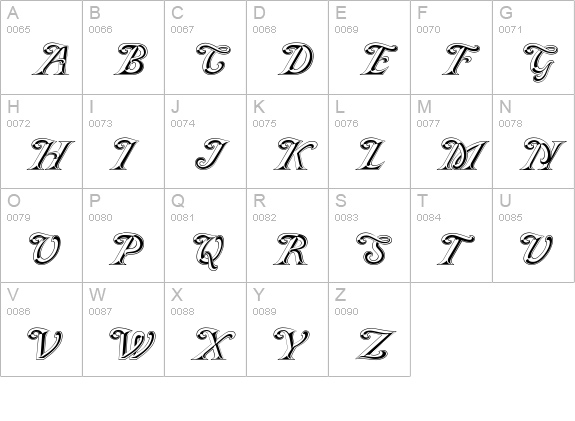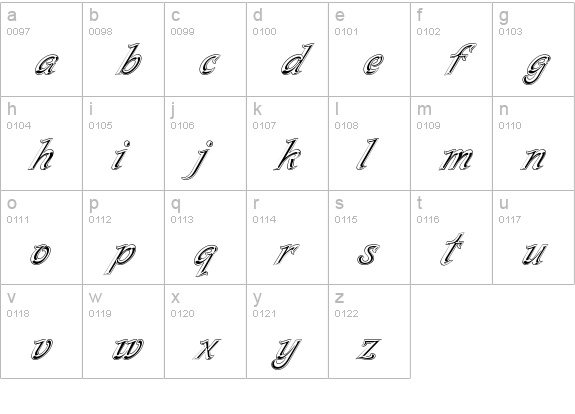
Sterling Font Details
The Sterling font is a timeless and elegant typeface that exudes sophistication and charm. Its sleek lines and classic design make it perfect for a wide range of projects, from branding to editorial design. The versatility of Sterling font allows it to seamlessly transition from elegant wedding invitations to sleek corporate materials with ease. What makes Sterling font even more appealing is that it is available for free download at FontsMarket.com. This means that you can add this stunning font to your collection without any cost, making it a valuable asset for any designer or creative professional. Don't miss out on the opportunity to enhance your projects with the beauty and style of Sterling font – download it today and elevate your designs to new heights.